Introducing “Chop Crap” – a lively and humorous handwritten font that combines boldness with a playful twist. With its expressive letterforms and bold style, Chop Crap brings a touch of fun and whimsy to your designs. Chop Crap showcases a unique blend of humor and boldness, making it ideal for projects that require a standout typographic element with a funny twist.
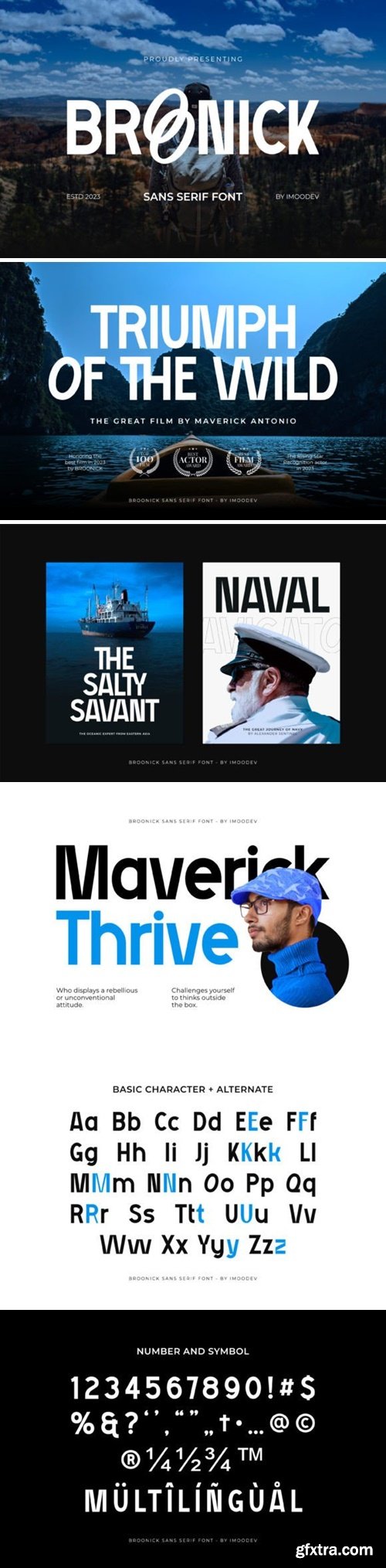
Broonick is a modern and stylish sans serif font. With its unique yet versatile look, this font will work in a great variety of contexts.
Muleno is a modern and stylish serif font that exudes sophistication and elegance. With clean lines and refined curves, it offers a touch of luxury to any design project. Ideal for fashion magazines, branding, and editorial layouts, Muleno commands attention and elevates your message. Embrace its timeless charm and create visually captivating designs with this versatile typeface.
Kishare Font is a bold and authentic display font. The font is suitable for any branding project like logo, poster, food, sport, space, and many more. Outstanding in a wide range of contexts.
Introducing Feeling Chill - a captivating modern brush sans serif font designed to breathe life into your creative projects. With smooth brush strokes and a contemporary flair, this font exudes elegance and versatility, making it perfect for logos, branding, headlines, and more. The inclusion of ligatures and swashes adds an artistic touch, creating visually appealing compositions that leave a lasting impact on your audience. Unlock the potential of your designs with "Feeling Chill" - a font that seamlessly blends modern aesthetics with timeless charm, empowering you to craft stunning, stand-out creations. Embrace the chill vibe and infuse your work with creativity and sophistication. Get ready to impress with Feeling Chill!
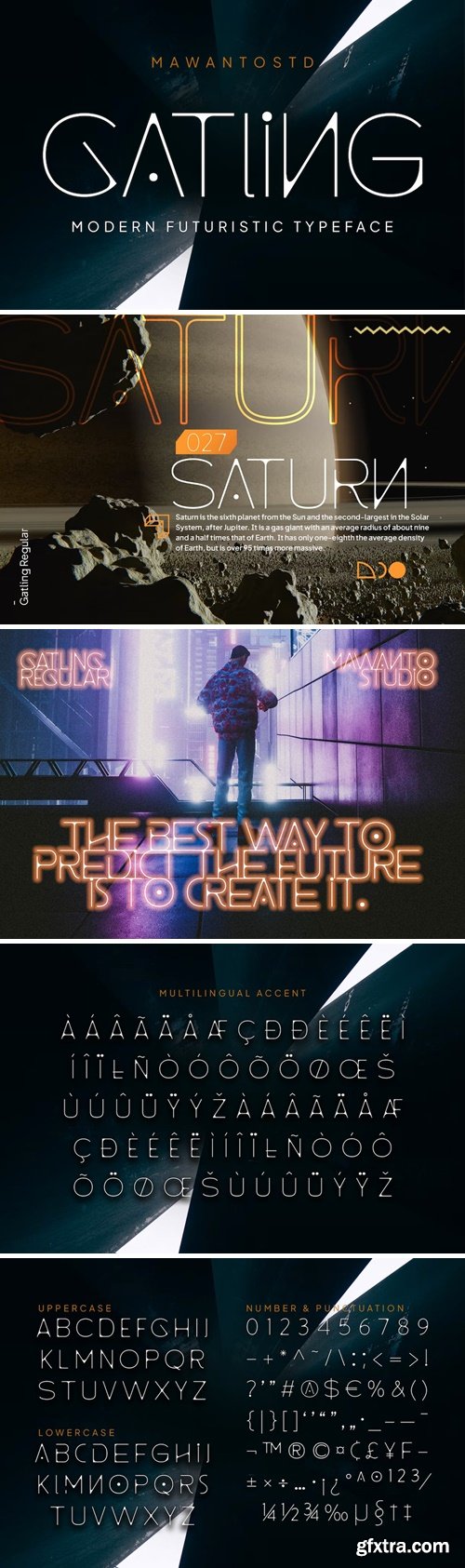
Gatling is modern futuristic typeface font. It looks stunning on wedding invitations, thank you cards, quotes, greeting cards, logos, business cards, and every other design which needs a classy touch. you can access all of the glyphs and ligatures with ease!
Introducing of our new product the name is Orange Juice.Orange Juice is modern and playful font, this font is a fun theme very good for crafting, cutting, decoration, banner, logos, tshirt , poster, food, branding, quotes, valentine, easter, summer, etc.
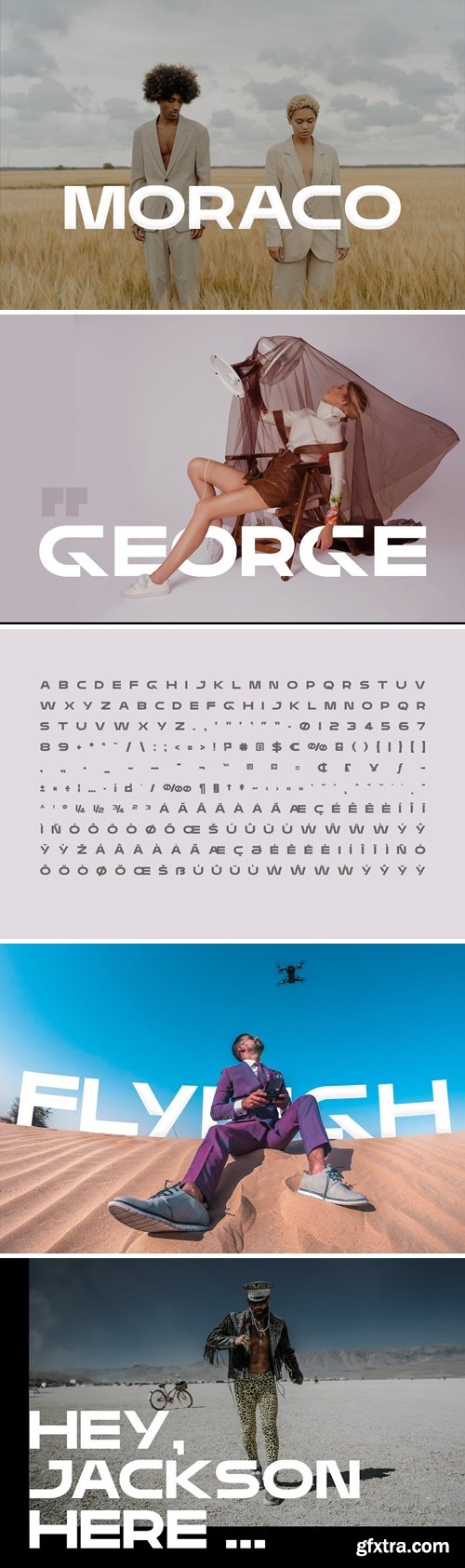
Introducing Moraco Display new generation Typeface created for building brand identity. Moraco Typeface created with the vision of to attract the audience to your brand. The finest details of this typeface are methodically and mathematically created. Moraco is created with all the tasks of a corporate font and also for the usage in a variety of projects, including branding, logos, titles, headlines, posters, screens, display, digital ads and everything else. We are putting a lot of effort on this font as a long-term project.
Pink Power is a 3D retro font sans based that contains layered styles and icons! You can use this font for any purpose such as poster, branding, merchandise, and any retro style! With unique lowercase, you can combine the lowercase and uppercase in one word that will give you the best look! This stylish bold fonts also included outline, strip, regular, extrude and shadow style that will give you 3D look when you combine all of the styles! This fonts suitable to use for poster, branding, merchandise, and any retro style! The unique icons also included in the font, you can access it from ligature opentype feature, just type O and number (1-9) for example O8 to get the love icon. This font support multilingual.
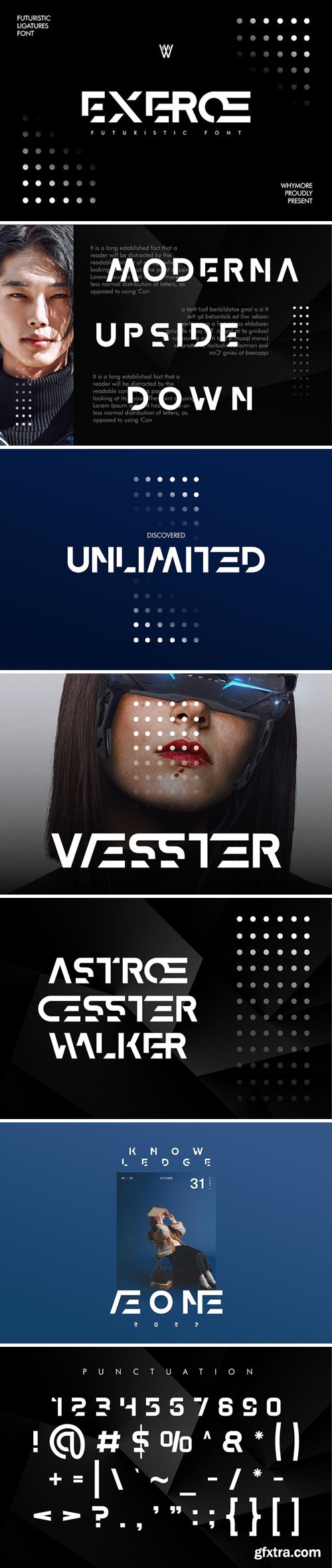
Well, EXEROE is a stunning typeface that can showcase elegance but with a minimalist form. The curves at each end of the letter ornament illustrate that this font is very ready to live in the present and the future. Minimalist yet luxurious and classy. Whether used for branding, Design templates, in the form of invitations, calendars, posters, headlines, brochures, promotional tools or editorial designs, EXEROE was created to meet the visual needs of a technological development. The versatile nature of the Moon Walk font makes it suitable for headlines, logos and lettering. Its legibility ensures clear communication yet invites a sharp eye catch. EXEROE is the perfect choice for those looking for a typeface that embodies the Future and sophistication that will not be limited by time. With a futuristic style but with a Y2k sytles feel, it can bring you to a different visual work.
Introducing the new Brothers Display Typeface!!! is a luxury and glamour display typeface,certainly not the kind of typeface you see everyday and Utterly unique.This font is both modern and nostalgic and works great for logos, magazine, social media,etc. Already matched up and ready to be used together for your next design!
"Magic Bounce" is a cute display font with three unique layers: regular, inner shadow, and outer shadow. This font is designed to add a playful and charming touch to your designs. The regular layer provides a delightful and whimsical appearance, while the inner and outer shadow layers add depth and dimension, giving your text a bouncing and magical effect. With its versatile layers, "Magic Bounce" is perfect for creating eye-catching headlines, posters, invitations, and other designs that need a touch of fun and enchantment. Embrace the magic of creativity with this delightful and versatile display font.
Merchy is a Bold Slab Serif display font. Bold stroke, fun character with a bit of ligatures and alternates. To give you an extra creative work. Merchy font support multilingual more than 100+ language. This font is good for logo design, Social media, Movie Titles, Books Titles, a short text even a long text letter and good for your secondary text font with script or serif. Make a stunning work with Merchy font.